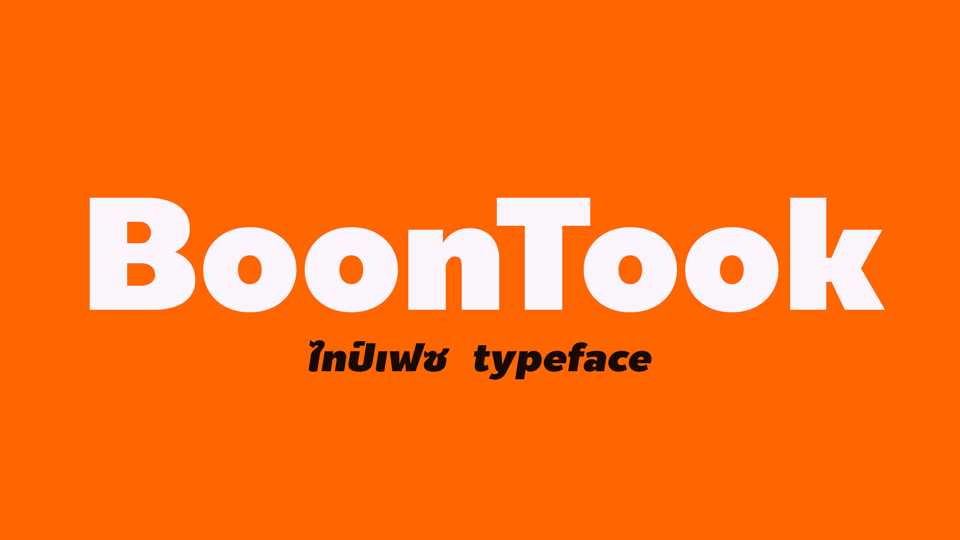
Download BoonTook typeface, the only heavyweight font family that has 4 styles – sharp and smooth, including matching Italics. BoonTook indicates good personality, although the body is thick, but it looks harmless.